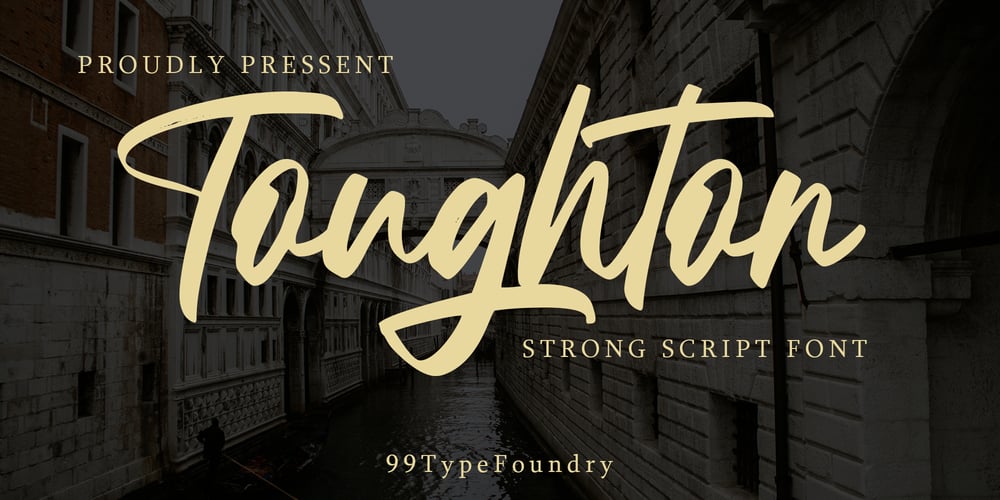
Toughton
Toughton font
Toughton Font Family was designed by Randi Ilhams and published by 99TyppeFoundry. Toughton contains 1 styles and family package options. Introducing Toughton Handwritten FontUnveil the beauty of handwritten elegance with Toughton, a font that breathes life into your creative projects. Designed to capture the essence of human touch, Toughton transforms words into a poetic dance of strokes and curves.The Art of PersonalizationToughton isn’t just a font; it’s a journey through the art of personalization. Whether you’re crafting wedding invitations, designing branding materials, or adding a human touch to your digital creations, Toughton’s unique character will infuse your work with warmth and authenticity.Timeless AppealWith a timeless appeal that transcends trends, Toughton embraces the charm of handwritten script. Its fluid strokes and carefully crafted ligatures ensure that every word flows effortlessly, making it the perfect choice for projects that demand elegance and readability.Versatile ApplicationFrom logos to social media graphics, packaging to editorial designs, Toughton adapts seamlessly to a variety of design contexts. Let your imagination run wild as you explore the versatility of this handwritten gem.Features and FunctionalityOpenType Features: Toughton comes with a set of OpenType features, including ligatures and alternates, to add depth and character to your text.Multilingual Support: Express yourself in various languages with Toughton’s extensive multilingual support.Web and Print Ready: Whether it’s for web design or print publications, Toughton is optimized for both digital and physical mediums. Elevate Your CreationsElevate your design game with Toughton Handwritten Font. It’s not just a font; it’s an artistic tool that allows you to tell your story with flair, grace, and a touch of humanity. Unlock the potential of your creative projects and make your message resonate with the world.Experience the magic of handwritten authenticity. Get Toughton today and let your words dance with elegance.